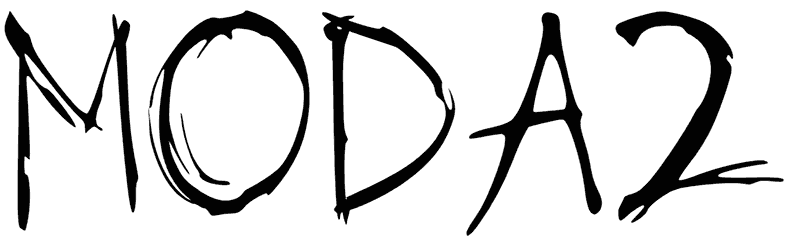
Modaz Font
Modaz is a horror font designed by hand and has an entirely eerie look when used. This fancy font is beautiful because it looks like handwritten notes often seen in murder mysteries or dark crime stories.
So if you want to create a bloody ending and an eerie design that will keep any viewer awake, this evil font will give you enough power. The lack of small letters cannot diminish the value of this font for book titles and movie teasers.